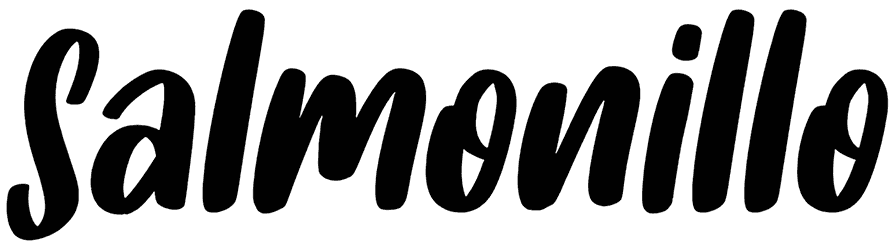
Salmonillo Font
Salmonillo is a handwritten font with a contemporary and fresh mood. This modern script font has a smooth and chunky brush lettering face that would be harmonized with various designs. Set Salmonillo on your intended projects, for example, postcards, invitations, planners, logotypes, or a lot more the same and properly format them with a delightful style, even without numbers and most of the punctuation marks.